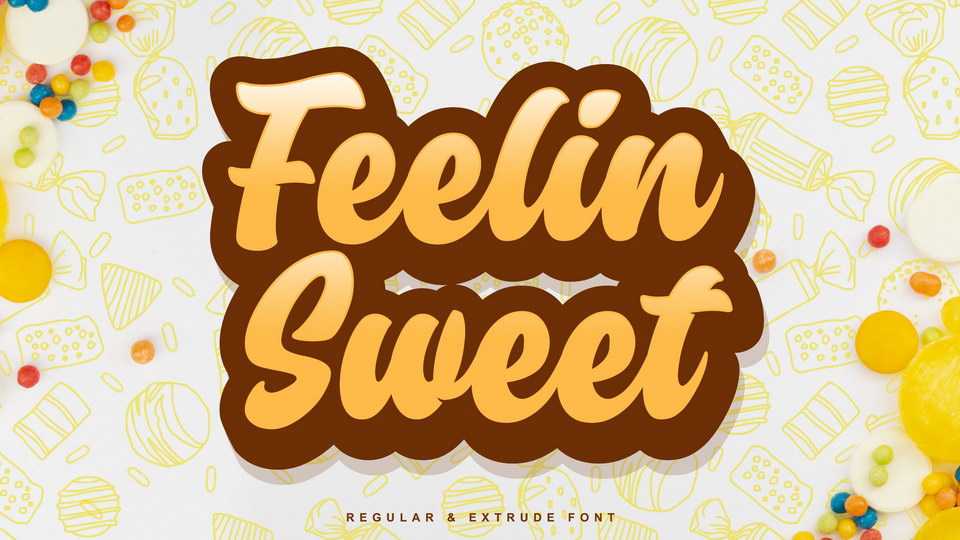
Feelin Sweet Script Font › Fontesk
Download Feelin Sweet font, a very smooth curvy handwritten typeface with a crunchy look. Feelin Sweet font will be the best choice for many project such as banner, brand packaging, cookies brand, snack brand, dessert design and more.